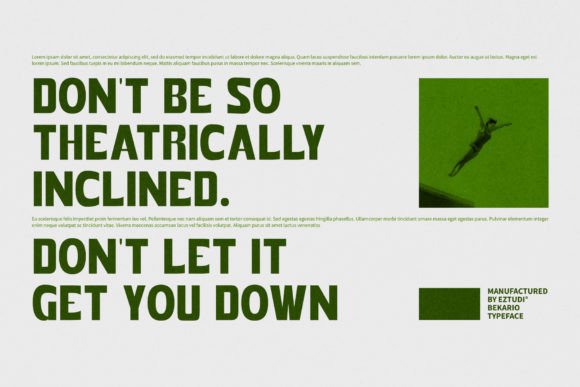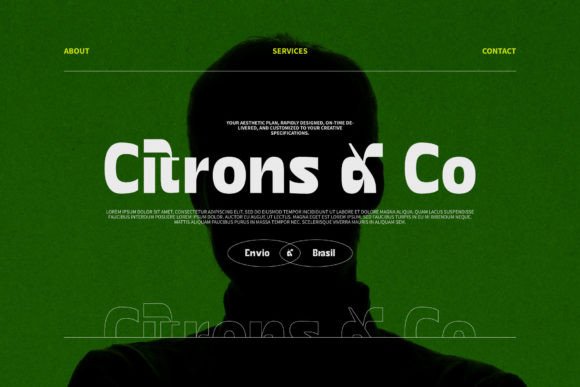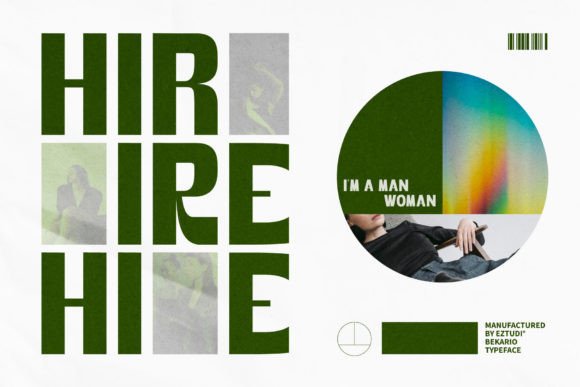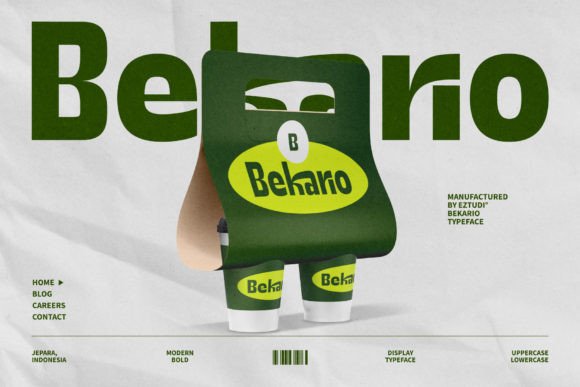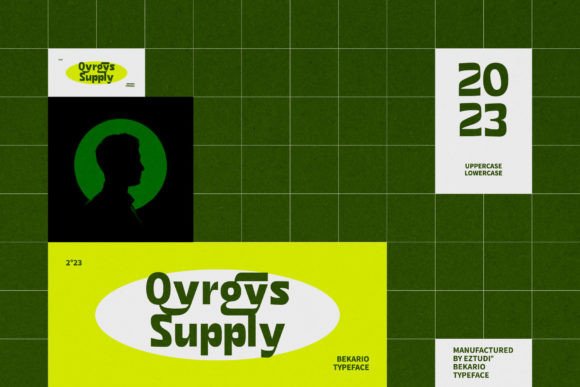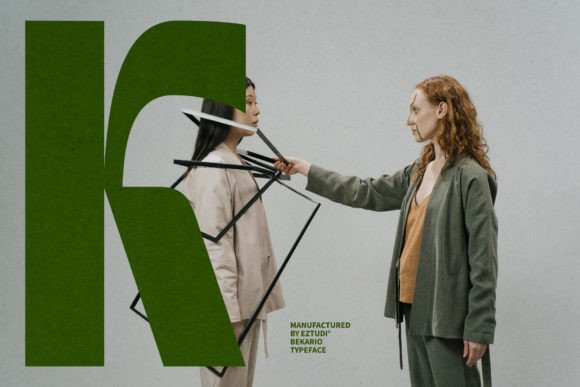
Bekario Font: Elevate Your Design with a Fresh and Contemporary Touch
In the world of typography, a font can make or break a design project. If you’re looking for a modern and unusual font to give your project a unique edge, look no further than Bekario Sans Modern Display. This stunning font is designed to bring a fresh and contemporary touch to any design project, making it perfect for designers and crafters seeking something new and exciting.
What is Bekario Sans Modern Display?
Bekario Sans Modern Display is a modern display sans font that is specifically designed to create elegant and luxurious design displays. With its clean lines, sleek curves, and contemporary style, Bekario is the perfect font for those seeking to make a statement with their design. Whether you’re working on a logo, title, or social media display, Bekario is the ideal choice for adding a touch of sophistication and glamour to your project.
Key Features of Bekario Font
- Modern and Fresh Design: Bekario Sans Modern Display boasts a modern and fresh design that is sure to turn heads. Its unique style is perfect for designers and crafters looking to create something new and exciting.
- Elegant and Luxurious: With its clean lines and sleek curves, Bekario is the perfect font for creating elegant and luxurious design displays.
- Versatile: Bekario can be used for a wide range of design projects, including logos, titles, and social media displays.
- Easy to Read: Despite its modern and sleek design, Bekario is easy to read, making it perfect for use on web and social media displays.
Uses of Bekario Font
Bekario Sans Modern Display is a versatile font that can be used for a wide range of design projects. Here are some of the most popular uses of Bekario:
- Logo Design: Bekario is perfect for creating elegant and luxurious logos that make a statement.
- Title Design: Use Bekario to create stunning titles that grab attention and add a touch of sophistication to your design.
- Social Media Displays: Bekario is ideal for use on social media displays, including Facebook, Instagram, and Twitter.
- Web Design: Bekario can be used to create elegant and luxurious web designs that showcase your brand’s personality.
Why Choose Bekario Font?
So why choose Bekario Sans Modern Display for your design project? Here are just a few reasons:
- Unique and Modern Design: Bekario boasts a unique and modern design that is sure to turn heads.
- Elegant and Luxurious: Bekario is the perfect font for creating elegant and luxurious design displays.
- Versatile: Bekario can be used for a wide range of design projects, making it a great addition to any designer’s toolkit.
| Font Name | Bekario Font |
| Author | eztudio |
In conclusion, Bekario Sans Modern Display is a stunning font that is perfect for designers and crafters seeking to add a fresh and contemporary touch to their design project. With its modern and sleek design, elegant and luxurious style, and versatility, Bekario is the ideal choice for a wide range of design projects. Whether you’re working on a logo, title, or social media display, Bekario is sure to make a statement and leave a lasting impression.